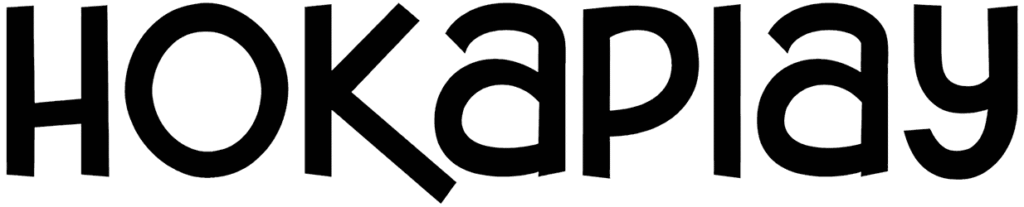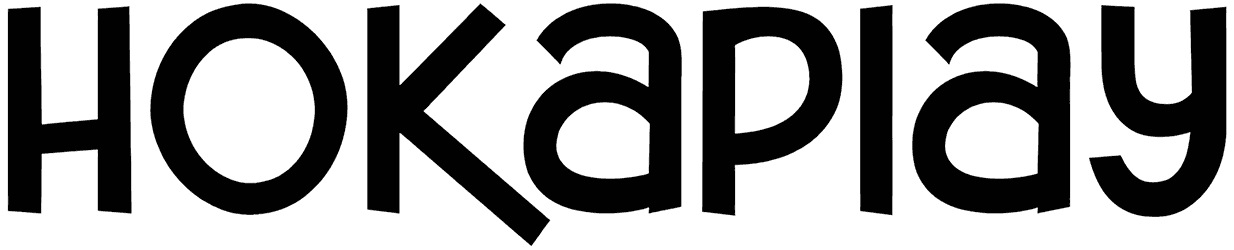
Hokaplay Font
What do you think about giving your current design a modern and cute form? This sticker font is capable of bringing this mood to your words with its bold and playful letters. Hokaplay doesn’t cover all lowercase letters, but with two styles, it would remain an apt choice for various novel designs such as posters, postcards, planners, and so forth.
Hokaplay – Playful Display Font